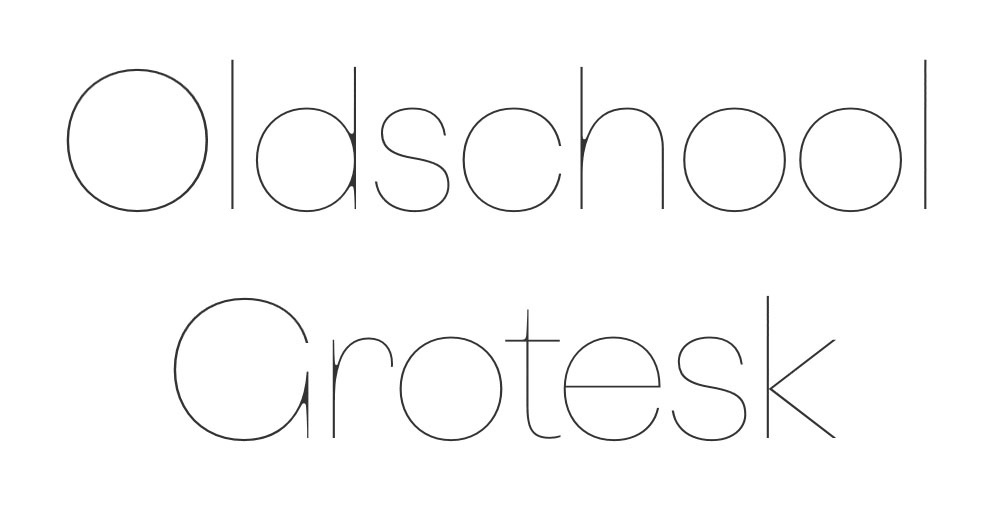
Oldschool Grotesk Font
Oldschool Grotesk Font is perfect for vintage industrial branding, retro typography projects, classic modernist designs, heritage manufacturing companies, old-school advertising campaigns, traditional craft brewery labels, vintage poster reproduction, mid-century modern interiors, classic automobile branding, historical museum displays, traditional European signage, and timeless projects that require authentic, early sans-serif typography with classical grotesk character.
What makes Oldschool Grotesk Font so exciting is its authentic connection to the foundational principles of early sans-serif design that captures the pure, unadorned functionality and industrial honesty of classic grotesk typography from the early 20th century. This typeface features clean, geometric letterforms with traditional grotesk proportions and characteristic details that embody the modernist ideals of clarity, efficiency, and timeless design. The font's classic character and historical authenticity make it perfect for projects that want to communicate reliability, craftsmanship, and the enduring appeal of fundamental design principles.
Whether you're designing heritage brands, classic modernist materials, or vintage-inspired communications, Oldschool Grotesk Font delivers exceptional authenticity and design purity that connects with audiences who value fundamental design principles and timeless aesthetic appeal. Its clean, functional appearance works beautifully across both contemporary and period applications, maintaining its classic grotesk character in all design contexts.
The masterfully crafted letterforms of Oldschool Grotesk Font demonstrate deep respect for the pioneering typography designers who established the sans-serif tradition. Each character has been carefully designed to honor the essential characteristics of classic grotesk fonts while ensuring optimal performance in modern applications, making it particularly valuable for projects that need to bridge historical authenticity with contemporary functionality.